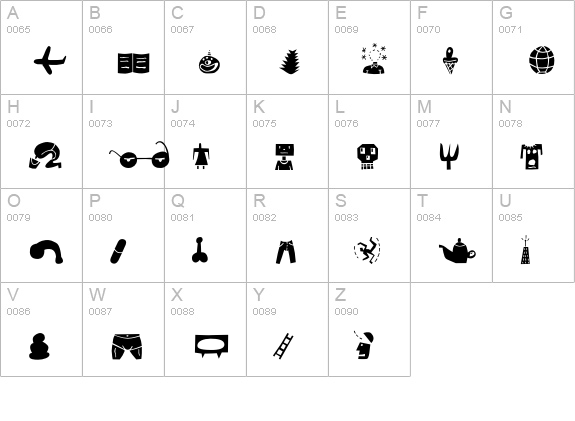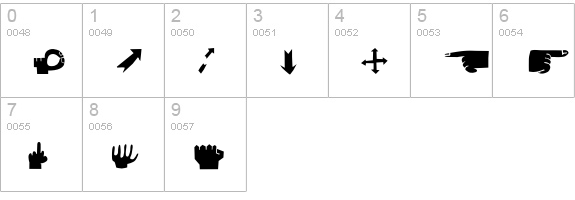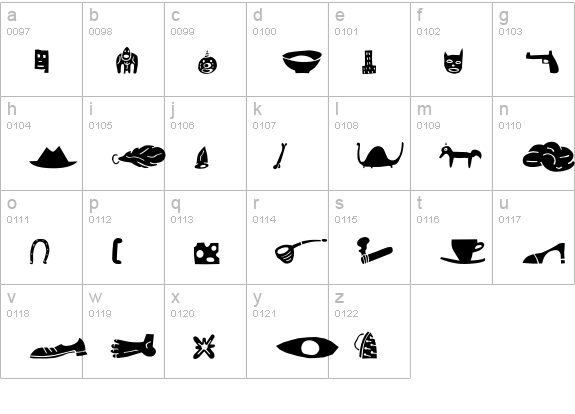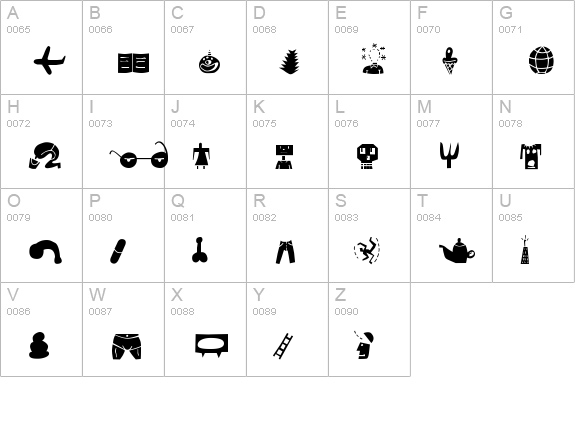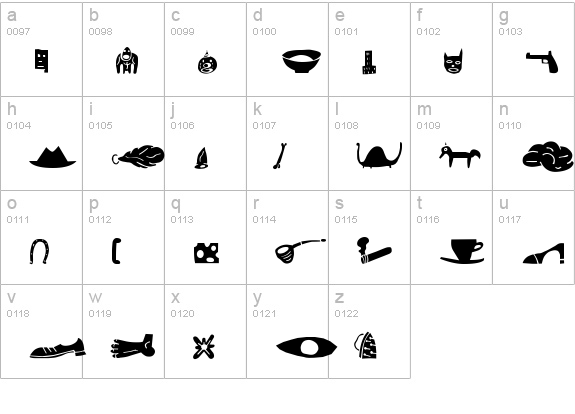
BlockheadIllustUnplugged Font Details
BlockheadIllustUnplugged font is a whimsical and playful display typeface that exudes a unique charm and character. With its quirky and irregular letterforms, this font is perfect for adding a fun and creative touch to any design project. Whether you are working on a poster, logo, or packaging design, BlockheadIllustUnplugged font will surely stand out and make a statement. What makes this font even more appealing is that it is available for free download at FontsMarket.com. You can easily access and use this font in your projects without any cost, making it a valuable resource for designers looking to add a touch of originality to their work. Don't miss out on the opportunity to enhance your designs with the distinctive style of BlockheadIllustUnplugged font – download it for free today and let your creativity soar!